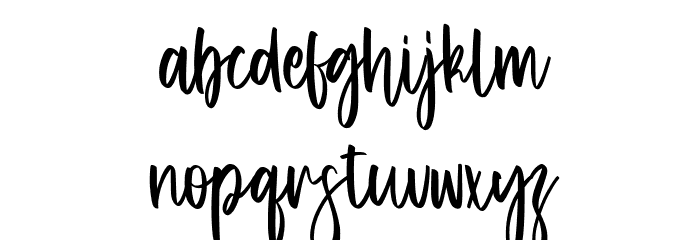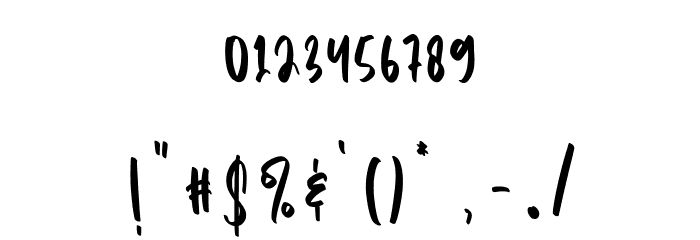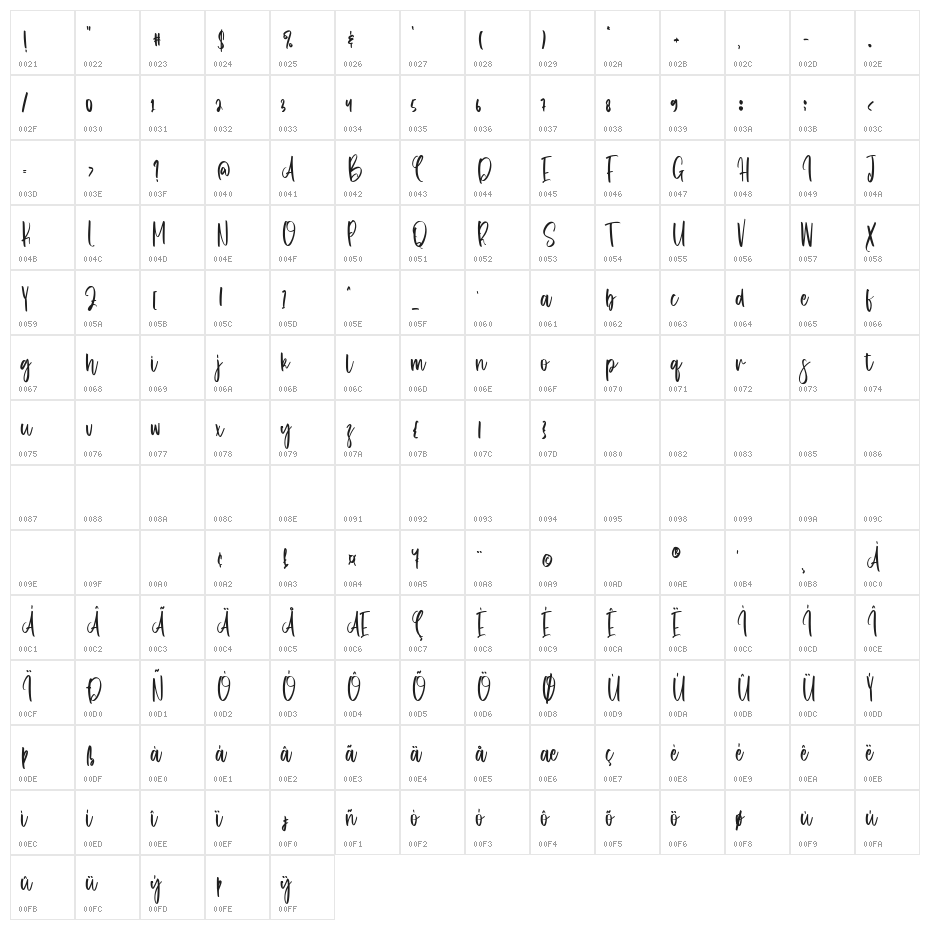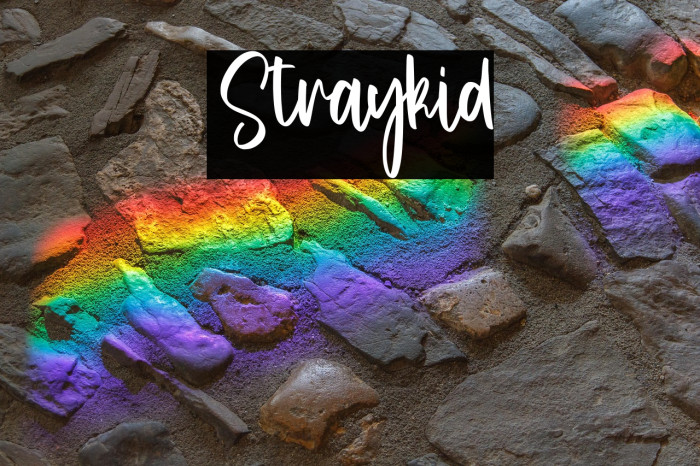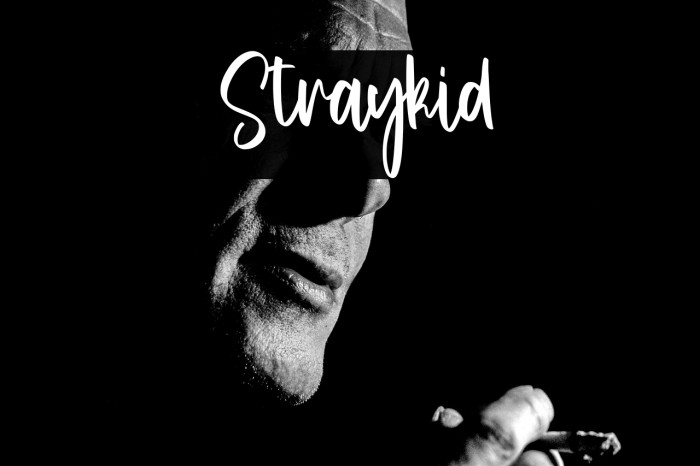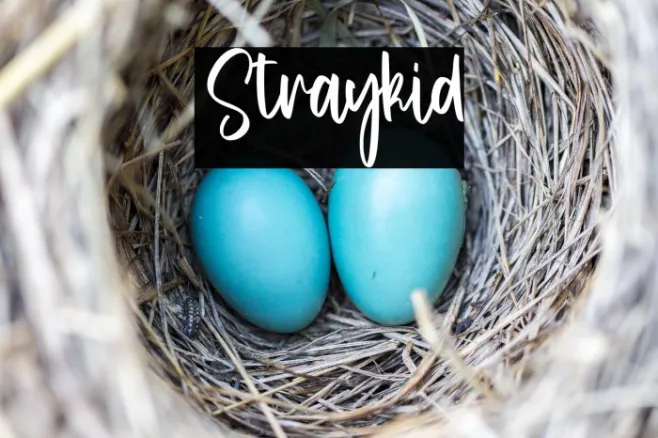
Straykid Font
This font features a playful and energetic handwritten style, characterized by its flowing, cursive-like strokes and varying thickness. The uppercase letters are bold and expressive, with a slight slant that adds to the dynamic feel. Lowercase letters maintain a consistent style, with smooth curves and loops that enhance readability while retaining a casual, artistic flair. Numbers and special characters are designed to match the overall aesthetic, ensuring a cohesive look across all text. The font's unique personality makes it ideal for creative projects that require a touch of whimsy and individuality.
A playful, handwritten font with dynamic, cursive-like strokes.